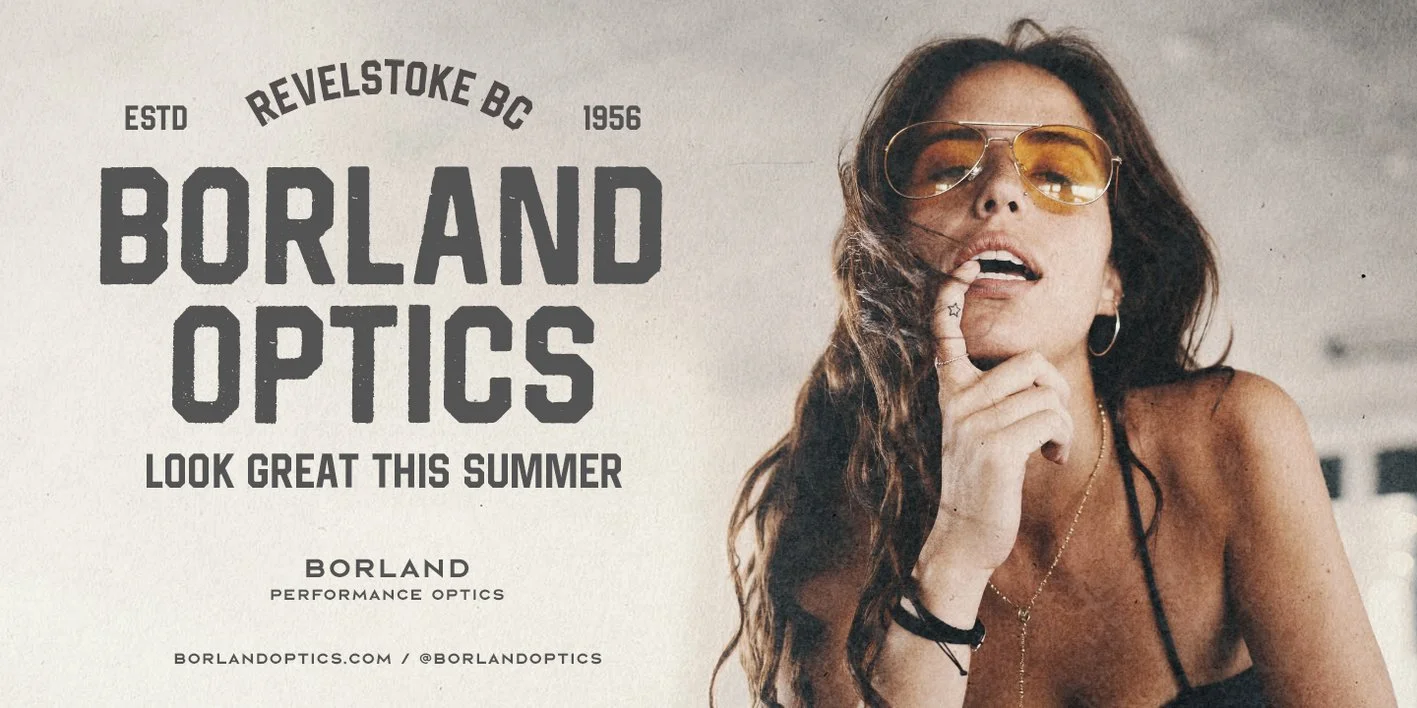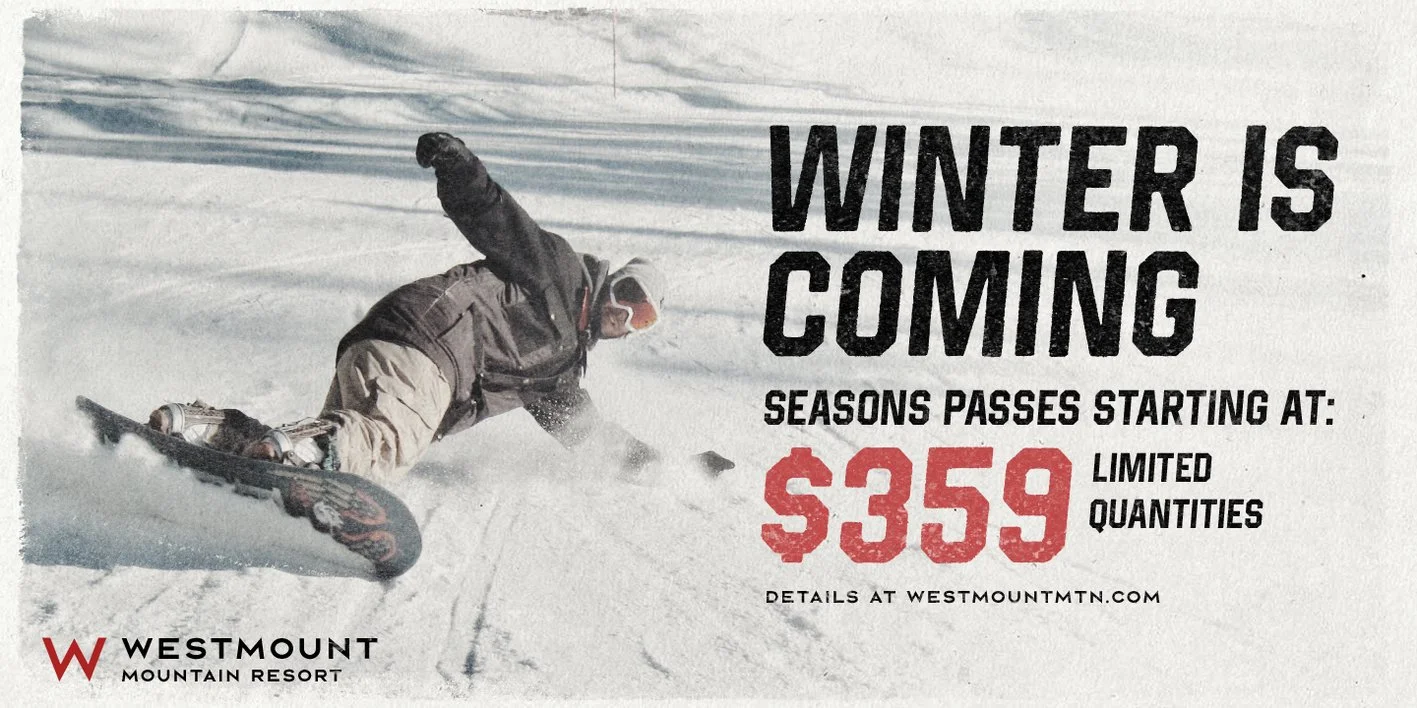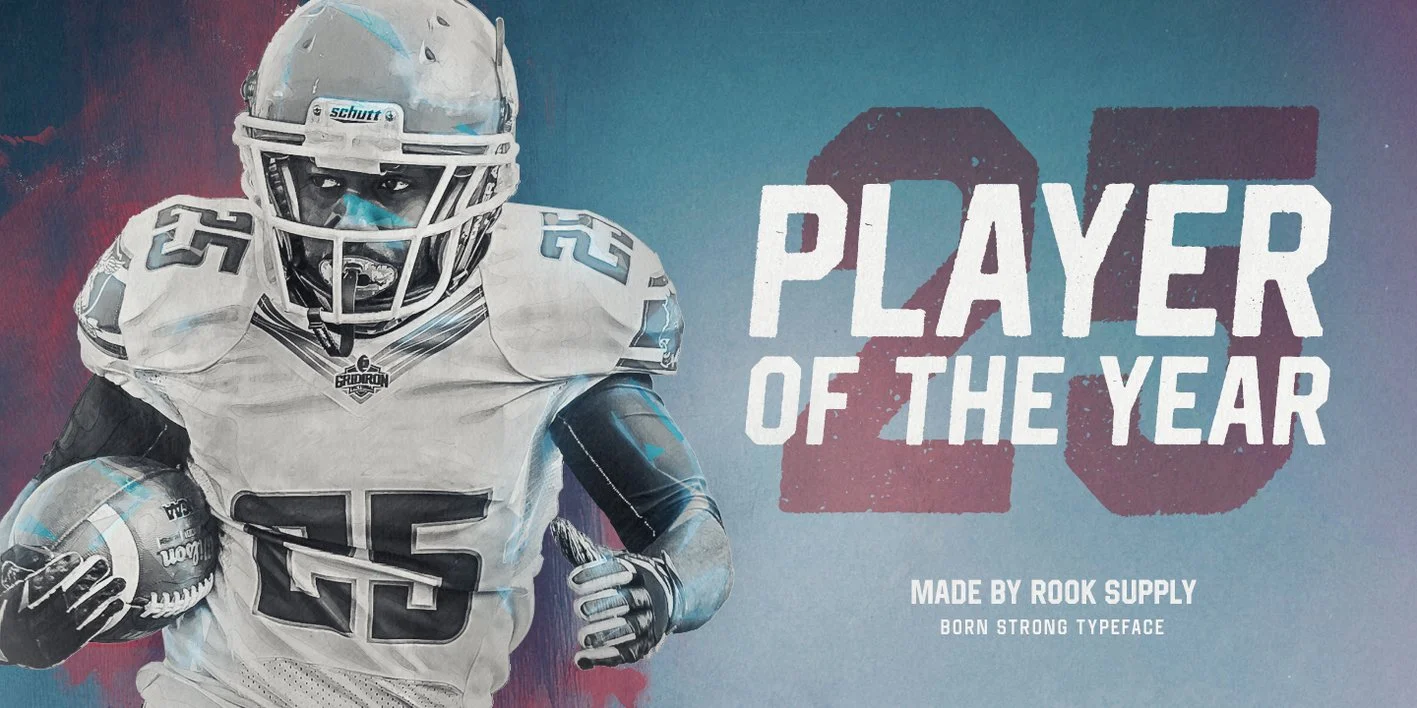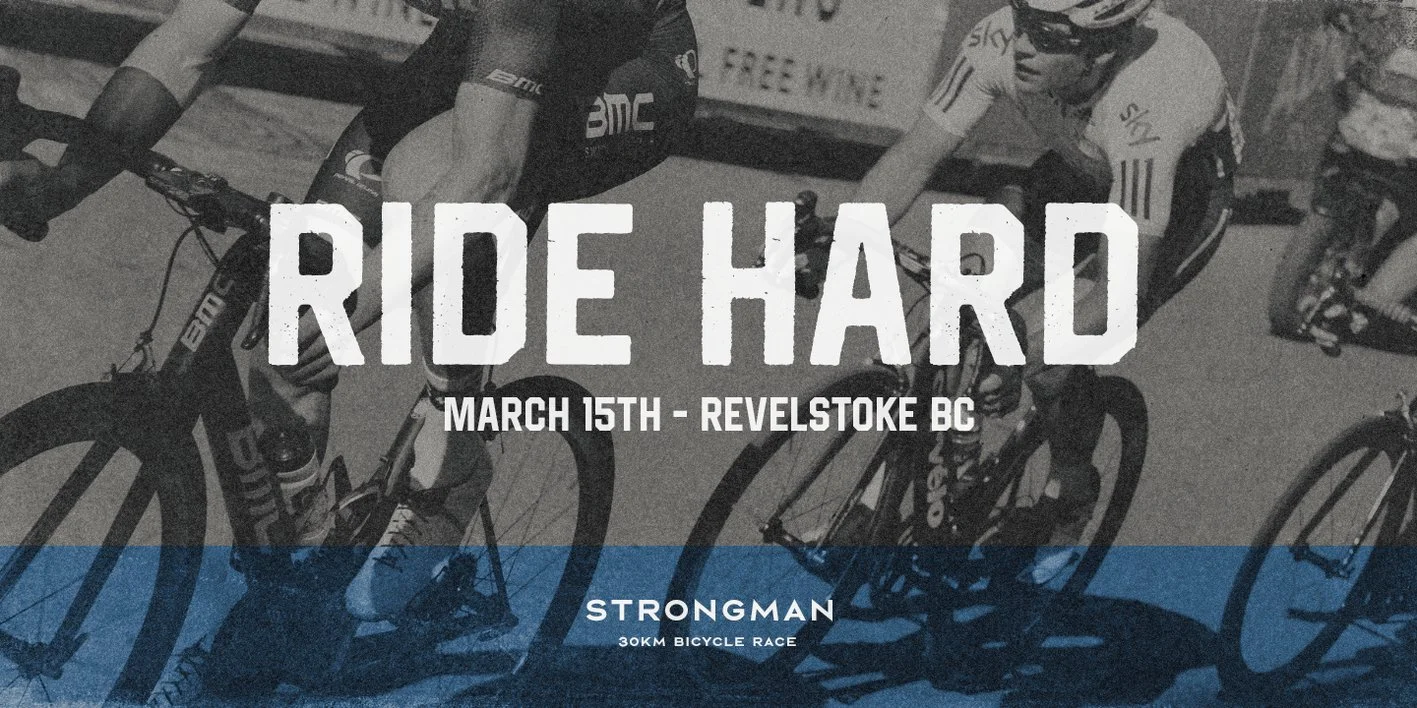
Born Strong Font
Few typefaces manage to balance visual harmony and precise spacing with genuine day-to-day practicality. Born Strong is one of them. The typeface brings a versatile sensibility to a broad range of creative disciplines, with controlled contrast that rewards close inspection that holds up whether the work is print-first or screen-first.
In practice, Born Strong proves particularly effective for environmental graphics, web design, product labels, annual reports, social media graphics. Designers reaching for it find that the type decisions feel resolved rather than laboured — a useful quality when client timelines are tight.
The range of applications extends to poster creation, signage systems, editorial layouts, logo design. That breadth is deliberate: the proportions and spacing were stress-tested across a wide range of mock briefs before the typeface was finalised.
Born Strong sits comfortably alongside both classic and contemporary typefaces in multi-font hierarchies. It takes direction rather than competing for attention — a quality that experienced designers know is harder to find than it appears.
In-house creative teams at consumer brands find Born Strong a reliable choice for projects that demand both personality and restraint. The design avoids the self-conscious quirkiness that dates quickly, settling instead for considered distinctiveness that holds up over time.